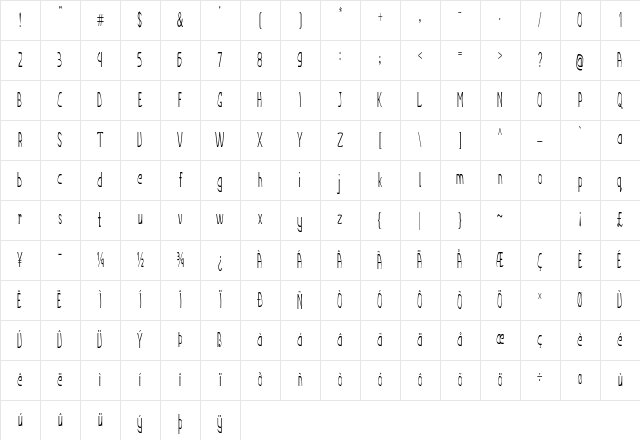
Lorian Extra-condensed Regular
Style: Extra-condensed Regular
Lorian Family
Lorian Extra-condensed Regular
Design Context for Lorian
Lorian is a composed and adaptable typeface that performs quietly and consistently across a wide range of design contexts. Its narrow stance lets it pack a punch even in space-constrained designs.
Pro Tip: Use Lorian in both headline and body roles to test its range before committing to a single application.